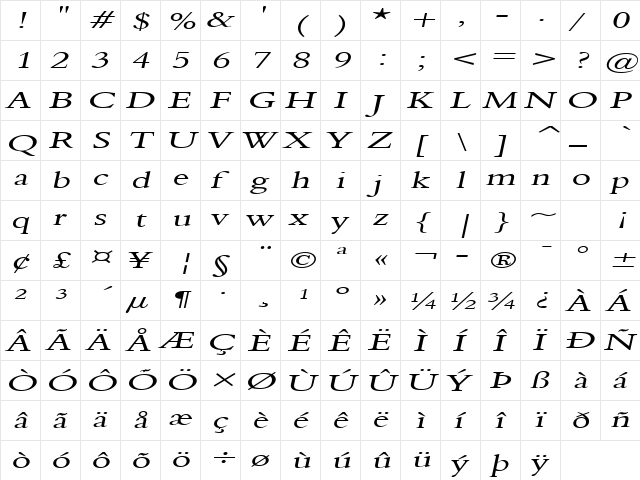
Nadine 2 Extended Italic
Design Context for Nadine 2 Extended Typeface
Nadine 2 Extended takes a measured approach to typography — its balanced proportions and neutral character make it a reliable workhorse for both digital and print work. The slanted form adds forward momentum and visual energy.
Pro Tip: Use Nadine 2 Extended for emphasis, pull quotes, and subheadings where its slanted energy can add rhythm to the layout.